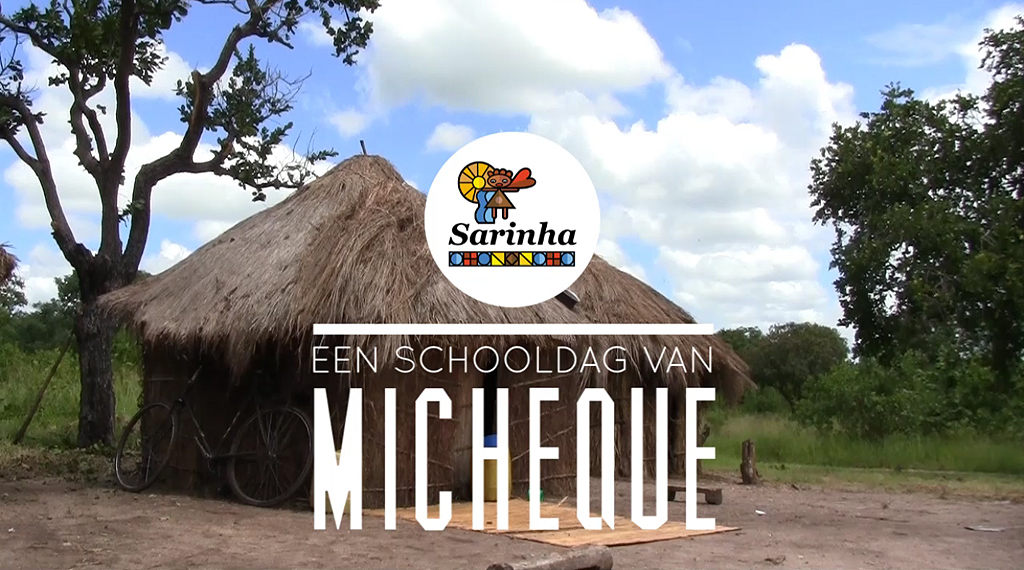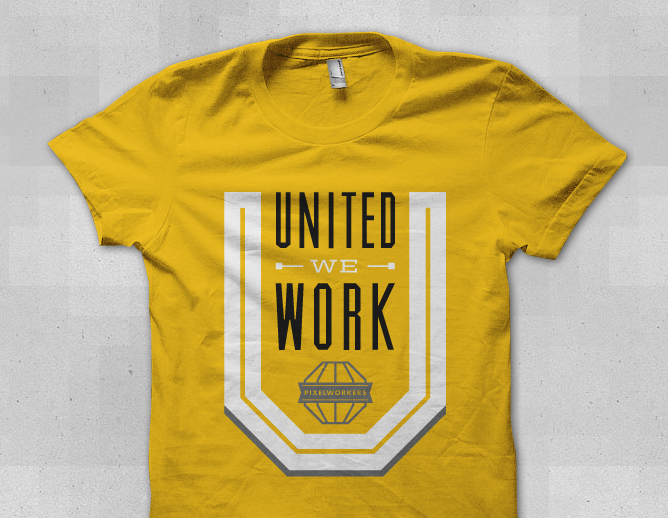
Muncie
A Strong, Durable Condensed Sans Serif.
The font that kicked this whole thing off, originally designed in 24 hours, and now back (new and improved).
Designed by
Riley Cran
Condensed Sans-Serif